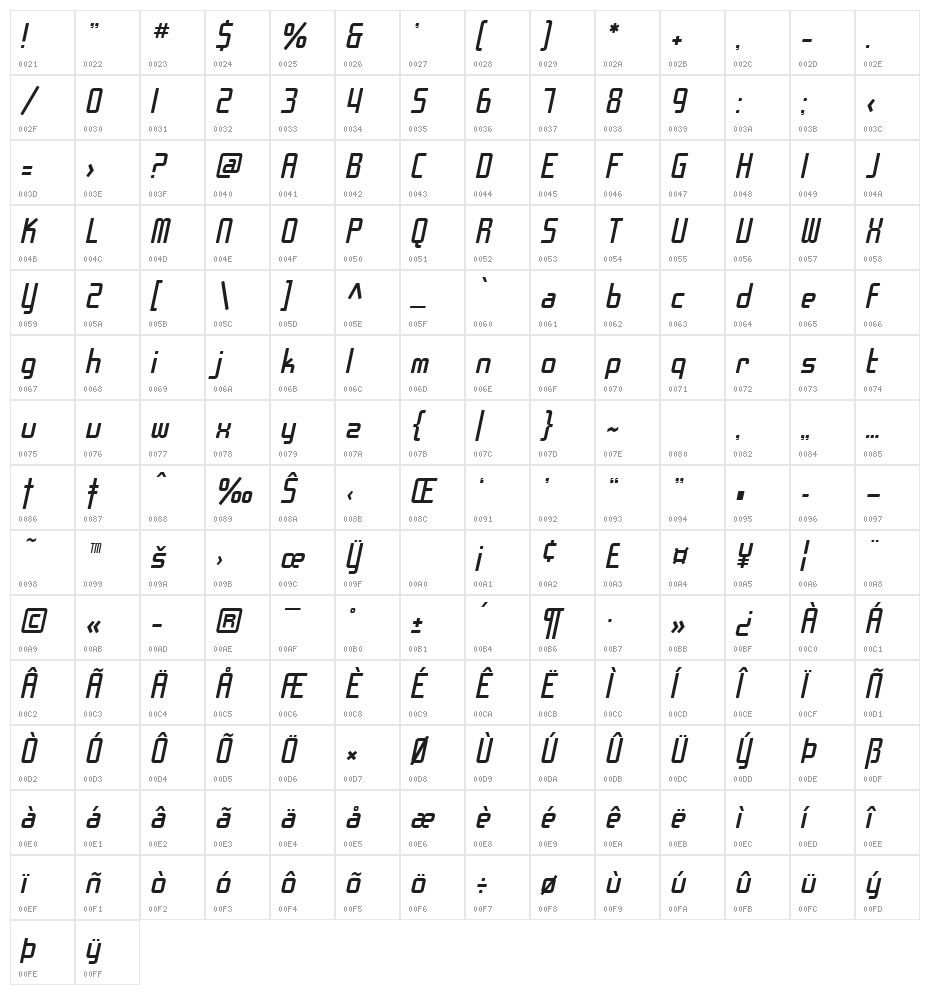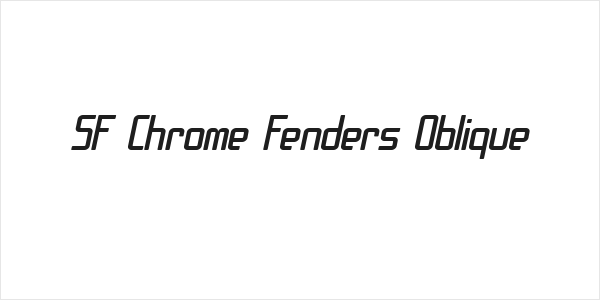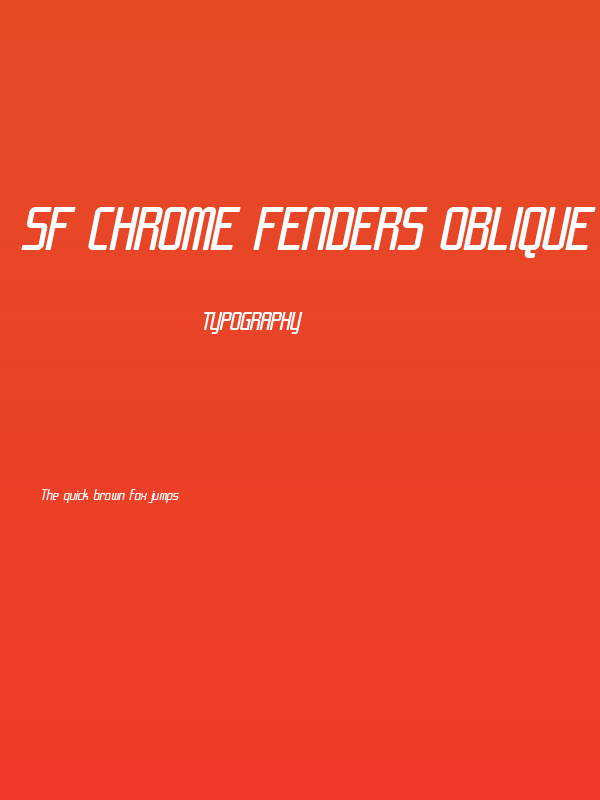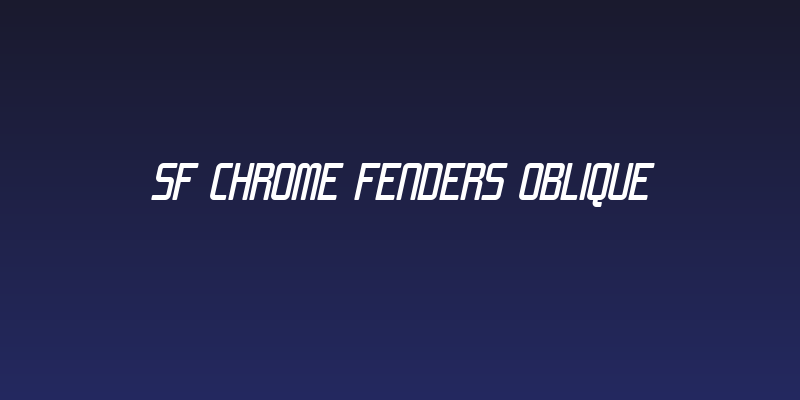
SF Chrome Fenders Oblique Font
SF Chrome Fenders Oblique Description
This font features a sleek, futuristic design with a distinct oblique slant, giving it a dynamic and forward-moving appearance. The characters are crafted with a geometric precision, featuring rounded edges and consistent stroke widths that contribute to its modern aesthetic. The uppercase and lowercase letters maintain a uniform style, while the numerals and special characters integrate seamlessly into the overall design. Its clean lines and angular forms make it suitable for projects that require a contemporary and tech-savvy look.
| Proposed Projects | Ideal for technology branding, automotive designs, sci-fi themed projects, and modern advertising campaigns. |